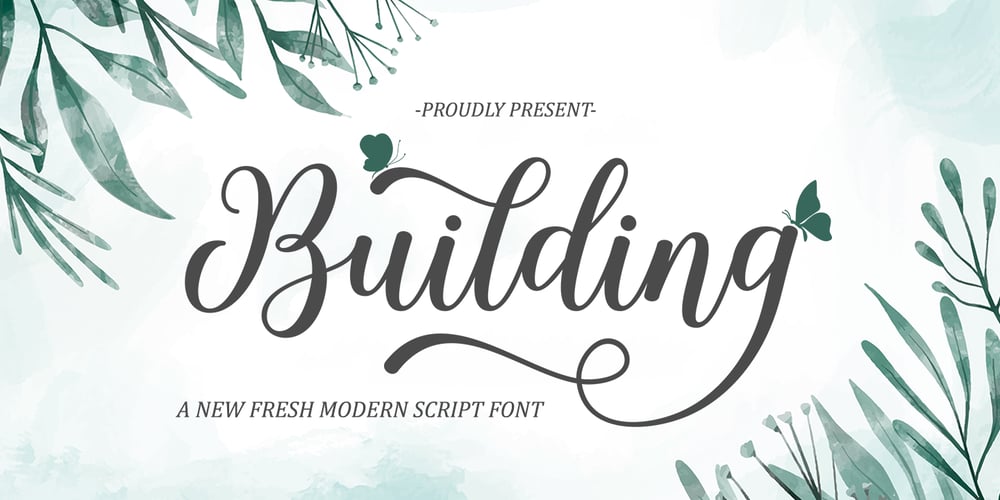
Building
Building font
Building Font Family was designed by Hafis Hidayat and published by HafisHidayat. Building contains 1 styles and family package options. Building Script is a modern calligraphy design, including Regular. Can be used for various purposes. such as logos, product packaging, wedding invitations, branding, headlines, signage, labels, signatures, book covers, posters, quotes, and more.